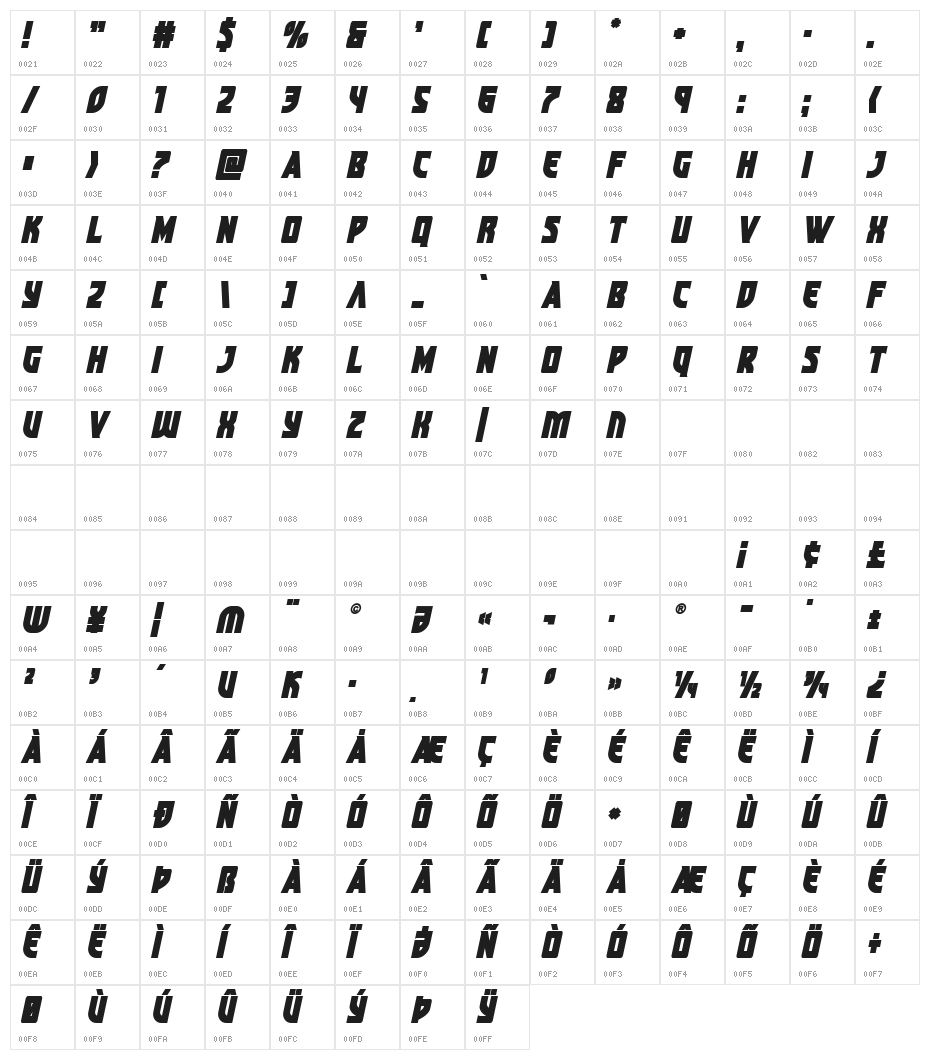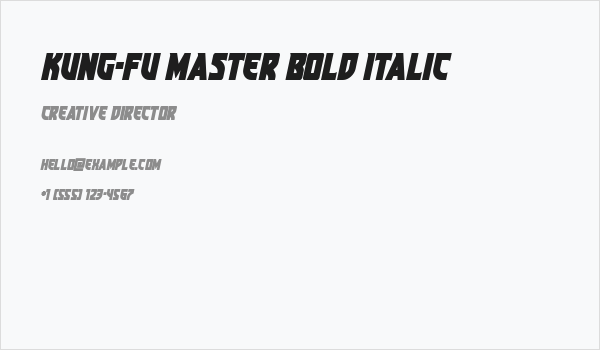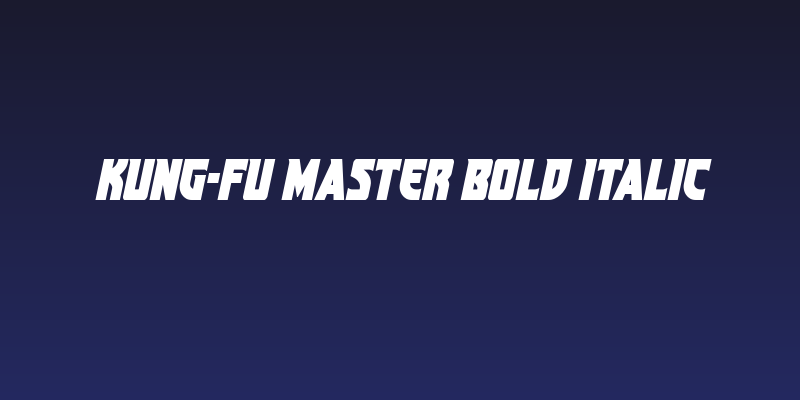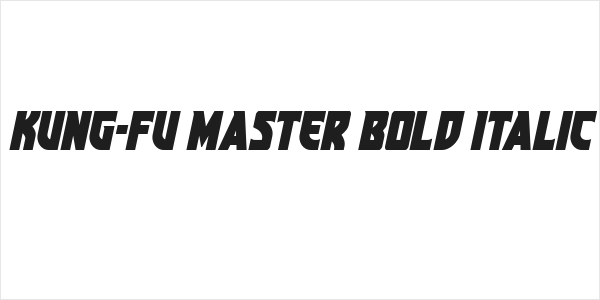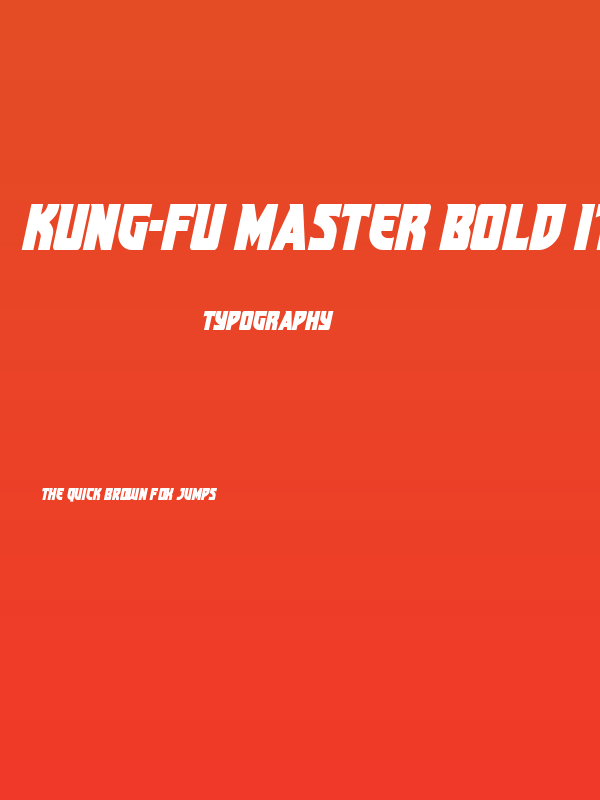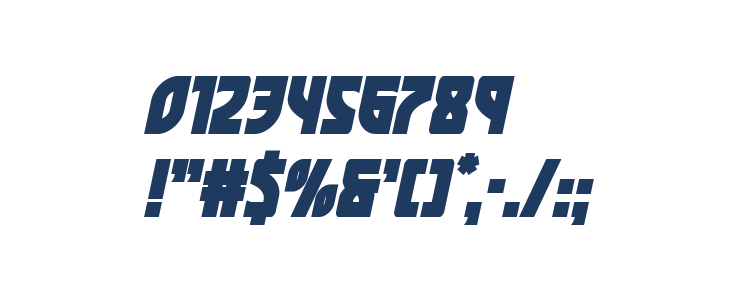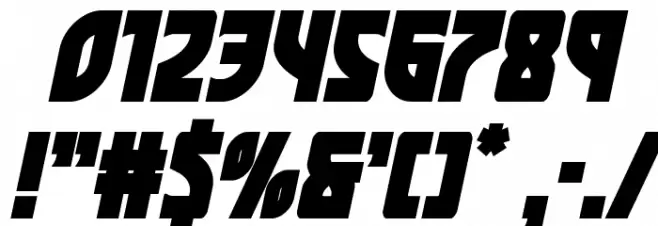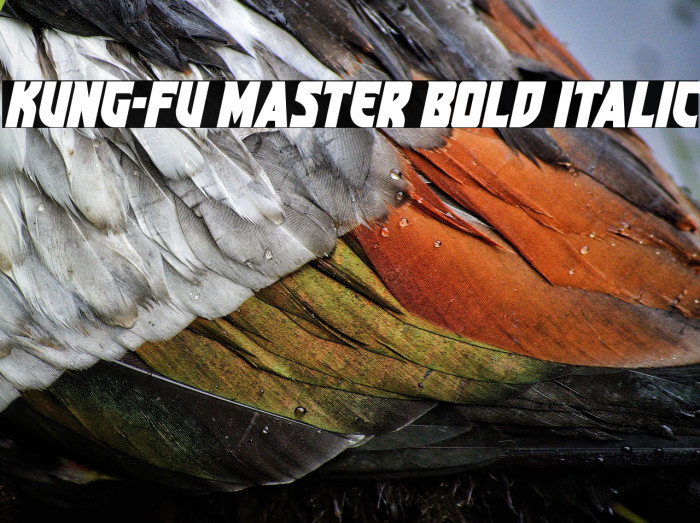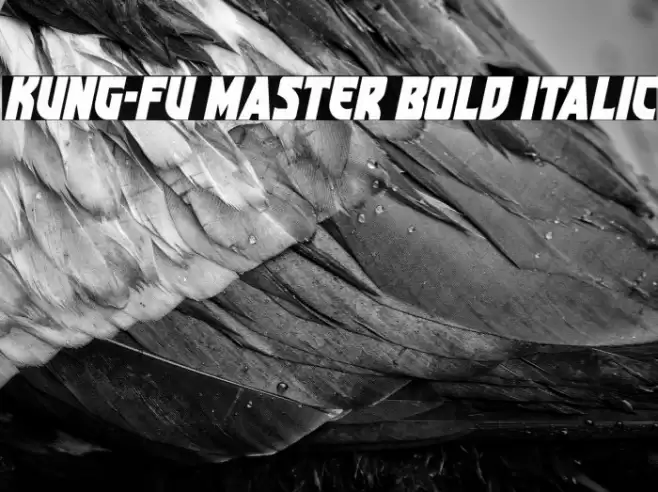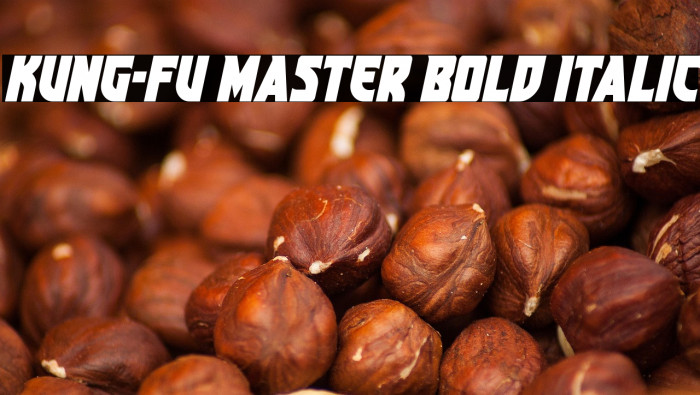
Kung-Fu Master Bold Italic Font
Kung-Fu Master Bold Italic Description
This font features a bold and dynamic style with a strong italic slant, giving it a sense of movement and energy. The characters are thick and robust, with sharp angles and a slightly condensed form that enhances its impactful appearance. The uppercase and lowercase letters maintain a consistent style, while the numerals and special characters complement the overall design. This font's aggressive and modern look makes it suitable for projects that require a strong visual presence.